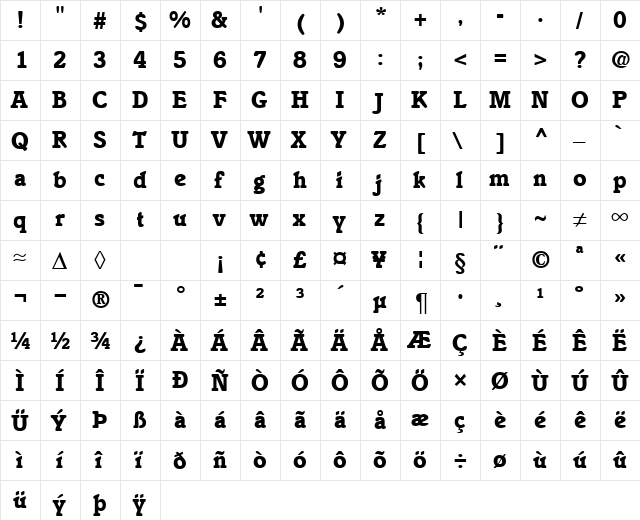
IstriaModernBlack Regular
Design Context for IstriaModernBlack Typeface
IstriaModernBlack takes a measured approach to typography — its balanced proportions and neutral character make it a reliable workhorse for both digital and print work.